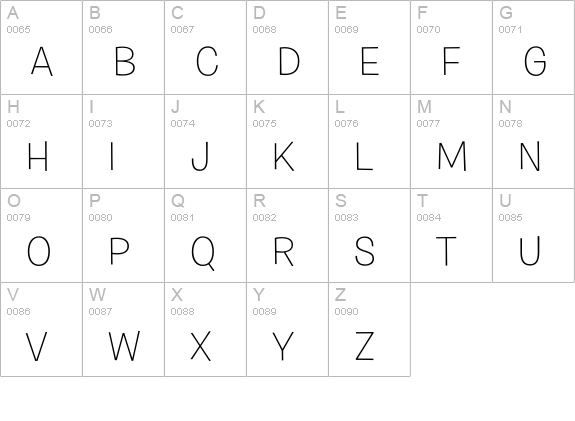
Burbank Small Light is a refined, elegant variant in the Burbank typeface family \xE2\x80\x94 well suited to elegant body text, refined sub-headings, and luxury branding.
Burbank Small Light font is a modern and sleek typeface designed for projects that require a clean and minimalist aesthetic. With its elegant and refined look, this font is perfect for adding a touch of sophistication to any design. The Burbank Small Light font features a delicate and airy appearance that is ideal for creating a sense of lightness and elegance in your work. This versatile font is suitable for a wide range of design applications, from branding and advertising to editorial and web design. Its slender and graceful letterforms make it easy to read, while its subtle curves and angles give it a unique and distinctive look. Best of all, Burbank Small Light font is available for free download at FontsMarket.com, making it accessible to designers and creatives looking to add a touch of style to their projects without breaking the bank. Whether you're working on a professional branding project or a personal creative endeavor, Burbank Small Light font is sure to elevate your designs and make them stand out from the crowd.